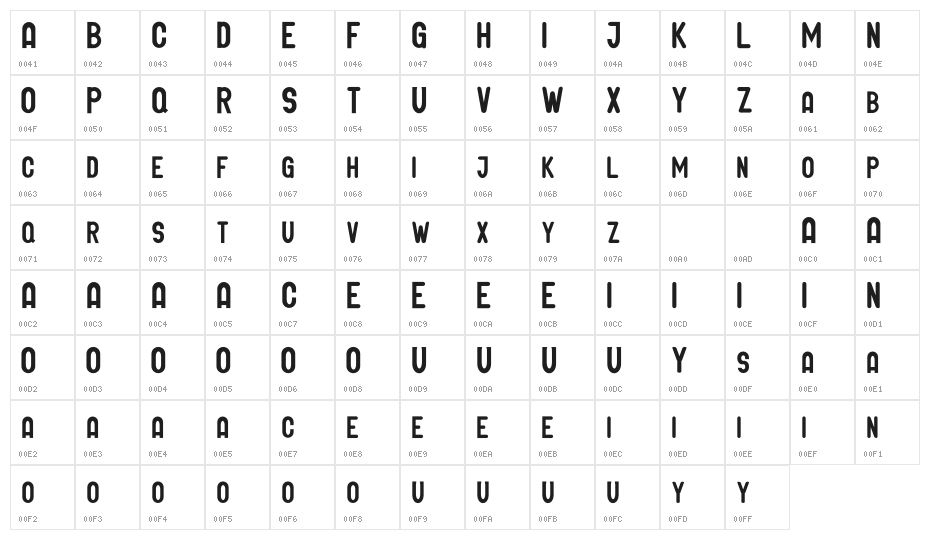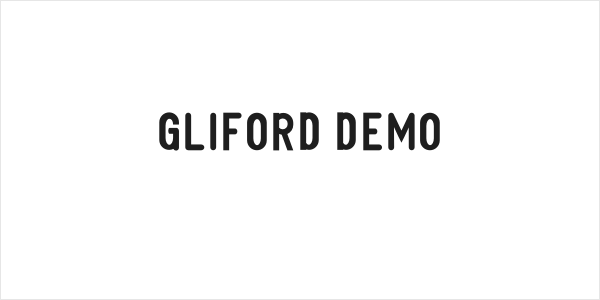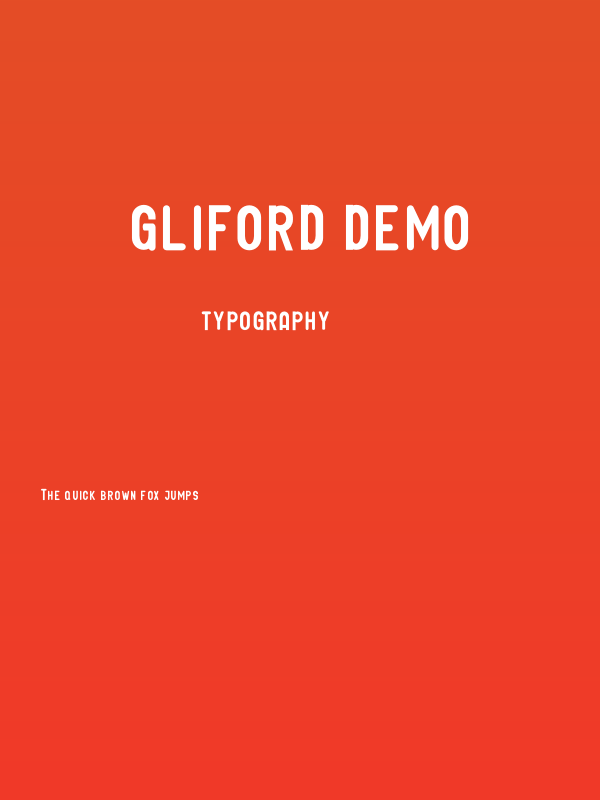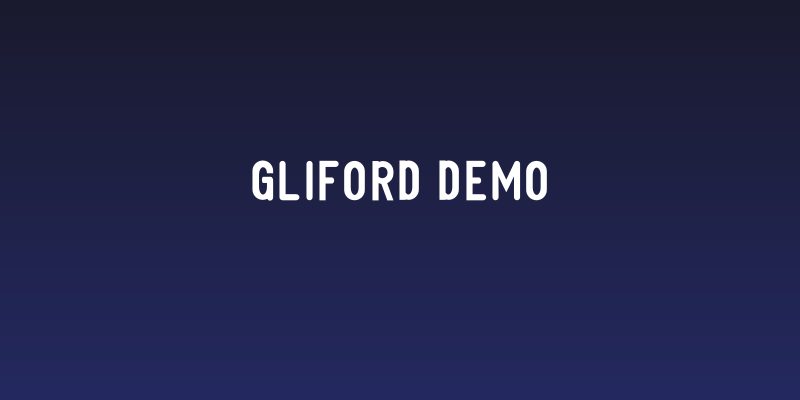
GLIFORD DEMO Font
GLIFORD DEMO Description
This font features bold, geometric letterforms with a modern and industrial aesthetic. The uppercase letters are characterized by their uniform stroke width and rounded corners, giving them a sturdy yet approachable appearance. The design is clean and straightforward, with a focus on readability and impact. The absence of lowercase letters and special characters suggests a minimalist approach, emphasizing the strength and clarity of the uppercase alphabet. The font's style is suitable for projects that require a bold statement, such as branding, signage, and headlines.